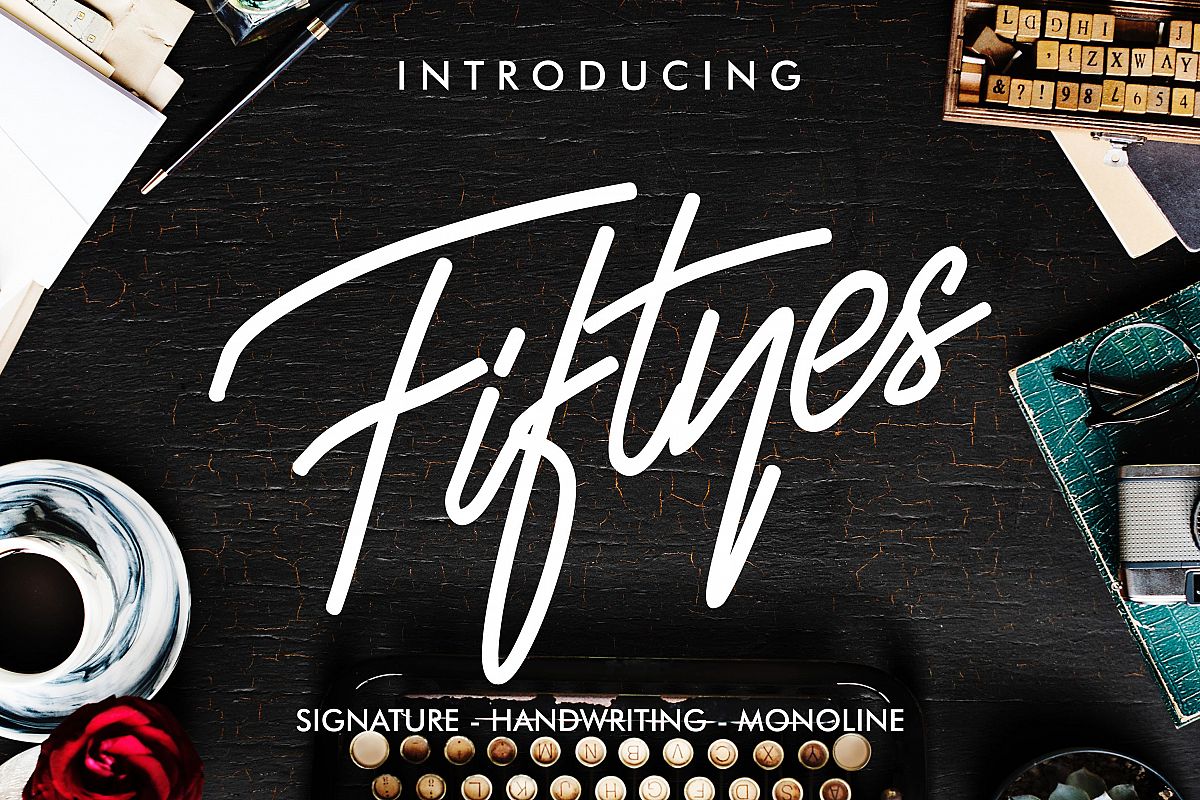
Fiftyes Signature
Introduce, this is our product with the name FIFTYES Font.
FIFTYES is a concept of touch of feminime, masculine and modern hand writing .
Sinteria is great if used on Invitation, Business Card, Portfolio, Photography Signature, Logo, more !